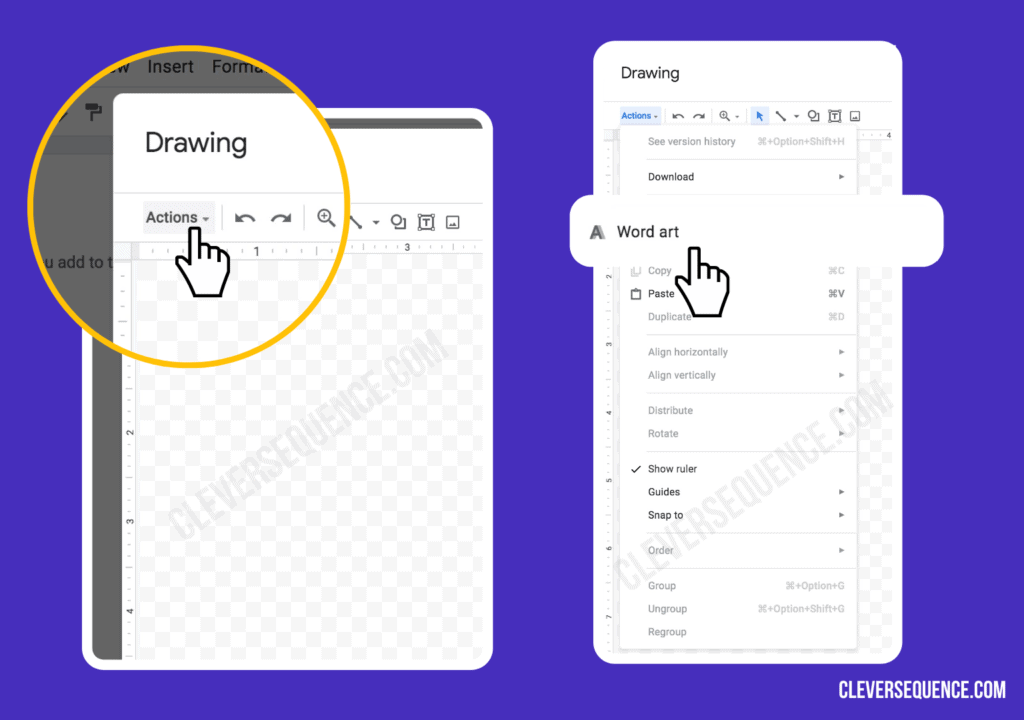
What Font Is Bubble Letters On Google Docs . You can choose from a variety of fonts available in google docs, including cursive. Rubik spray paint is considered one of the best bubble letter fonts on google docs. What font is bubble letters on google docs? While google docs doesn’t offer bubble letter fonts directly, you can achieve a similar effect with a few creative steps. The fonts mentioned above are great picks for your next projects,. While google docs doesn’t offer a specific bubble letter font, you can choose a bold and rounded font such as “arial rounded” or “comic sans ms” to achieve a similar effect. These fonts feature rounded, bubbly letters that can make any text stand out and. Bubble letter fonts on google docs are an excellent way to add a fun and whimsical touch to your documents. Select the font you want to use for your bubble letters. Select a font that resembles bubble letters.
Select the font you want to use for your bubble letters. Rubik spray paint is considered one of the best bubble letter fonts on google docs. While google docs doesn’t offer a specific bubble letter font, you can choose a bold and rounded font such as “arial rounded” or “comic sans ms” to achieve a similar effect. Select a font that resembles bubble letters. You can choose from a variety of fonts available in google docs, including cursive. These fonts feature rounded, bubbly letters that can make any text stand out and. Bubble letter fonts on google docs are an excellent way to add a fun and whimsical touch to your documents. The fonts mentioned above are great picks for your next projects,. While google docs doesn’t offer bubble letter fonts directly, you can achieve a similar effect with a few creative steps. What font is bubble letters on google docs?
What Font Is Bubble Letters On Google Docs These fonts feature rounded, bubbly letters that can make any text stand out and. The fonts mentioned above are great picks for your next projects,. You can choose from a variety of fonts available in google docs, including cursive. While google docs doesn’t offer a specific bubble letter font, you can choose a bold and rounded font such as “arial rounded” or “comic sans ms” to achieve a similar effect. Rubik spray paint is considered one of the best bubble letter fonts on google docs. Select a font that resembles bubble letters. Bubble letter fonts on google docs are an excellent way to add a fun and whimsical touch to your documents. Select the font you want to use for your bubble letters. These fonts feature rounded, bubbly letters that can make any text stand out and. What font is bubble letters on google docs? While google docs doesn’t offer bubble letter fonts directly, you can achieve a similar effect with a few creative steps.
How to create bubble text in google docs how to use wordart in google What Font Is Bubble Letters On Google Docs Select a font that resembles bubble letters. Bubble letter fonts on google docs are an excellent way to add a fun and whimsical touch to your documents. These fonts feature rounded, bubbly letters that can make any text stand out and. What font is bubble letters on google docs? You can choose from a variety of fonts available in google. What Font Is Bubble Letters On Google Docs.
Bubbly Font Free Our Last Font To Feature Is Modak. Printable What Font Is Bubble Letters On Google Docs Rubik spray paint is considered one of the best bubble letter fonts on google docs. Bubble letter fonts on google docs are an excellent way to add a fun and whimsical touch to your documents. Select the font you want to use for your bubble letters. You can choose from a variety of fonts available in google docs, including cursive.. What Font Is Bubble Letters On Google Docs.
Colored Bubble Letter Font 20 Free PDF Printables Printablee What Font Is Bubble Letters On Google Docs Select a font that resembles bubble letters. Rubik spray paint is considered one of the best bubble letter fonts on google docs. You can choose from a variety of fonts available in google docs, including cursive. The fonts mentioned above are great picks for your next projects,. Bubble letter fonts on google docs are an excellent way to add a. What Font Is Bubble Letters On Google Docs.
Bubble Fonts on Google Docs (2024) Graphic Pie What Font Is Bubble Letters On Google Docs These fonts feature rounded, bubbly letters that can make any text stand out and. Bubble letter fonts on google docs are an excellent way to add a fun and whimsical touch to your documents. Select a font that resembles bubble letters. You can choose from a variety of fonts available in google docs, including cursive. Rubik spray paint is considered. What Font Is Bubble Letters On Google Docs.
Best Bubble Letter Fonts on Google Docs What Font Is Bubble Letters On Google Docs Select a font that resembles bubble letters. These fonts feature rounded, bubbly letters that can make any text stand out and. Bubble letter fonts on google docs are an excellent way to add a fun and whimsical touch to your documents. Rubik spray paint is considered one of the best bubble letter fonts on google docs. What font is bubble. What Font Is Bubble Letters On Google Docs.
How Do I Make Bubble Letters In Google Slides Design Talk What Font Is Bubble Letters On Google Docs Select the font you want to use for your bubble letters. You can choose from a variety of fonts available in google docs, including cursive. While google docs doesn’t offer a specific bubble letter font, you can choose a bold and rounded font such as “arial rounded” or “comic sans ms” to achieve a similar effect. Rubik spray paint is. What Font Is Bubble Letters On Google Docs.
How To Change The Font To Bubble In Google Docs FluidAble What Font Is Bubble Letters On Google Docs Rubik spray paint is considered one of the best bubble letter fonts on google docs. These fonts feature rounded, bubbly letters that can make any text stand out and. Select a font that resembles bubble letters. While google docs doesn’t offer a specific bubble letter font, you can choose a bold and rounded font such as “arial rounded” or “comic. What Font Is Bubble Letters On Google Docs.
6 Steps to Make Bubble Letters in Google Docs October 2024 What Font Is Bubble Letters On Google Docs What font is bubble letters on google docs? While google docs doesn’t offer bubble letter fonts directly, you can achieve a similar effect with a few creative steps. Bubble letter fonts on google docs are an excellent way to add a fun and whimsical touch to your documents. Select a font that resembles bubble letters. While google docs doesn’t offer. What Font Is Bubble Letters On Google Docs.